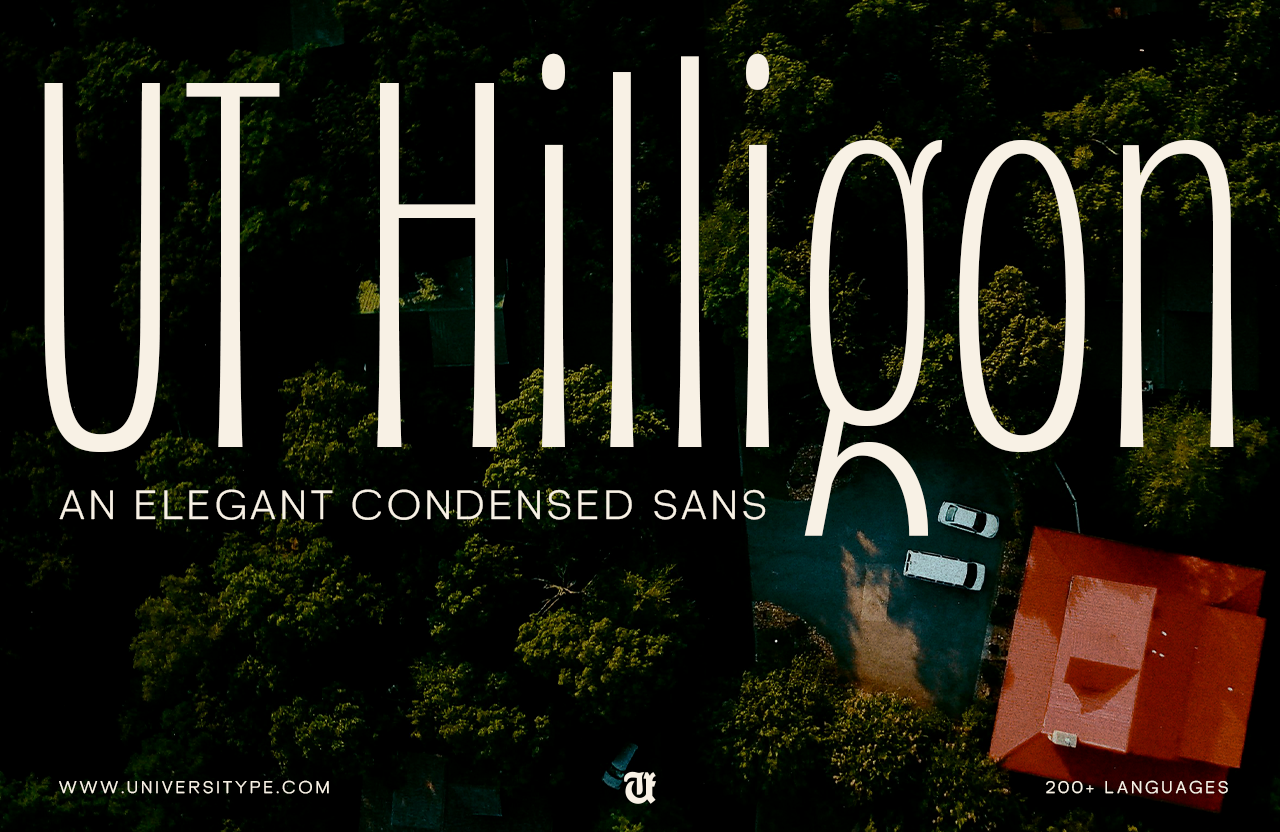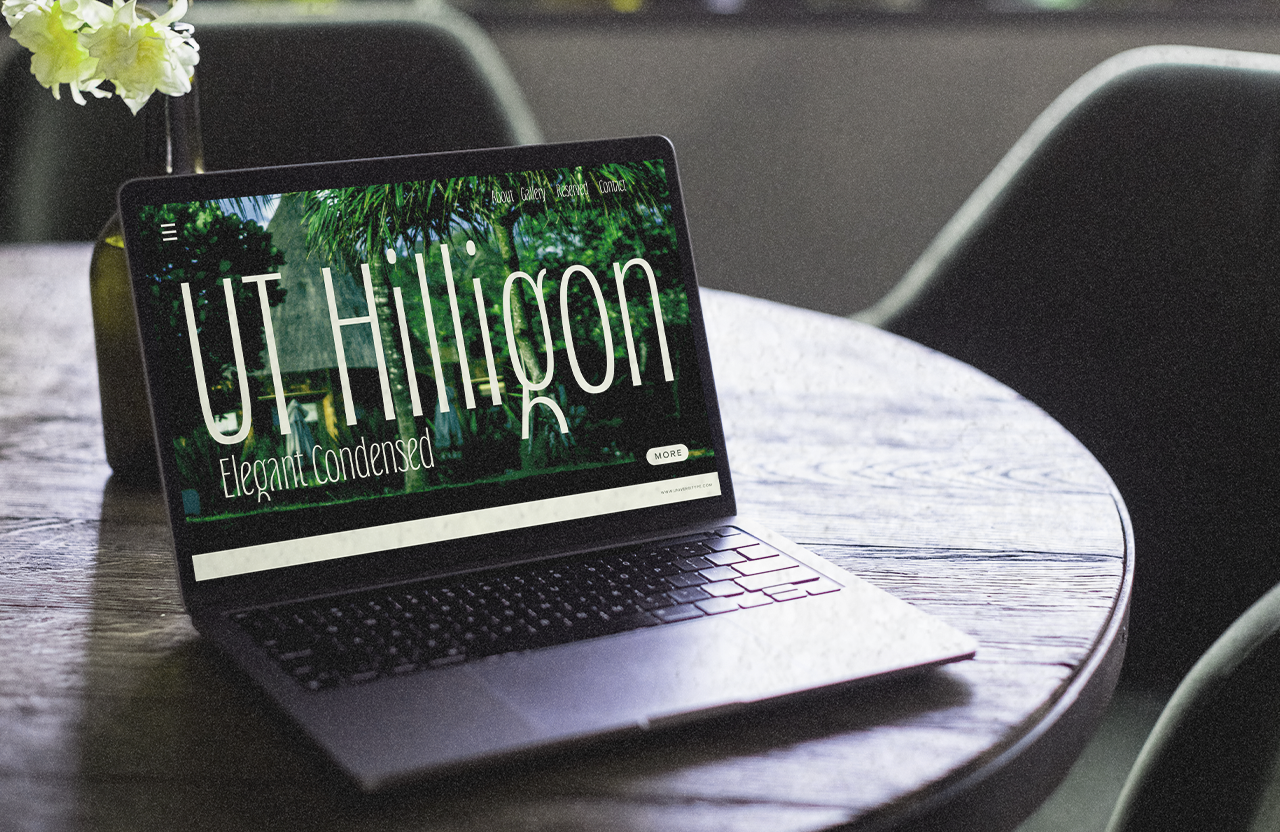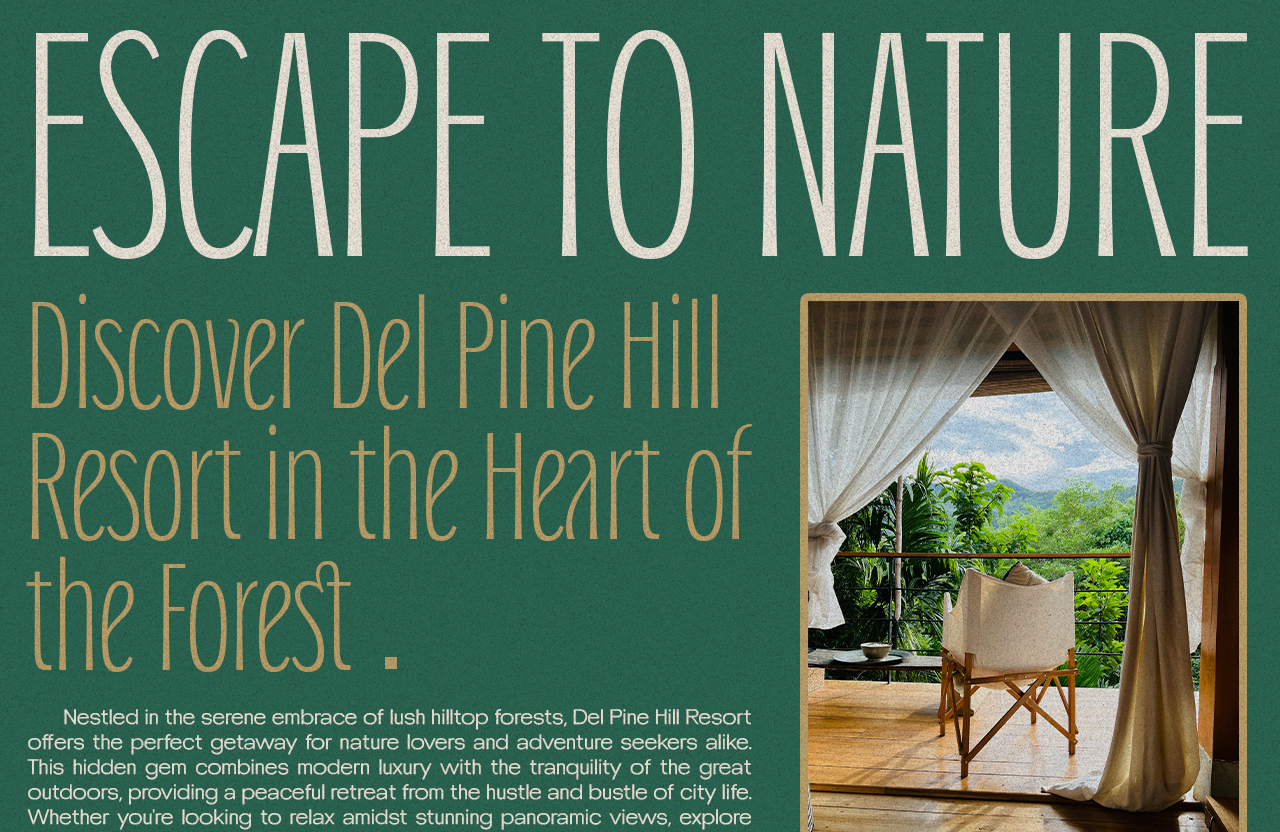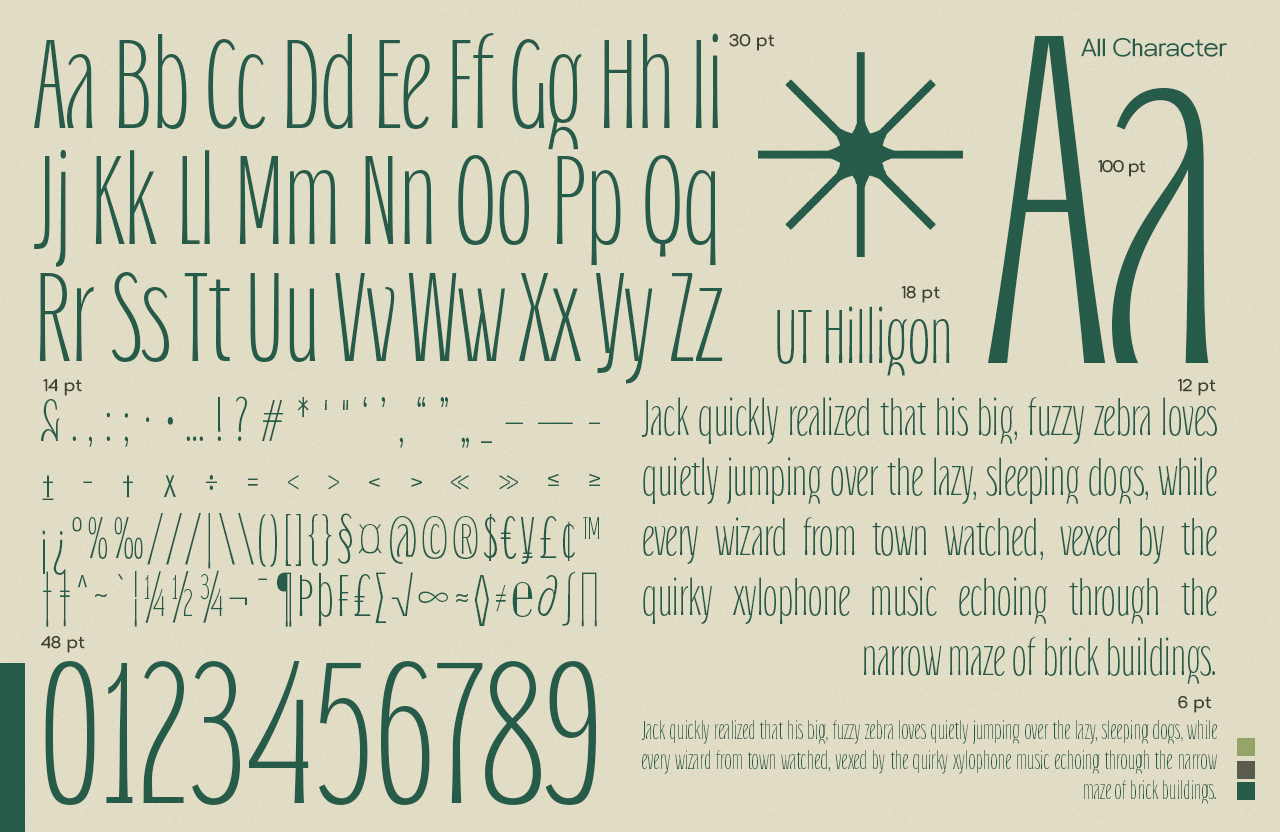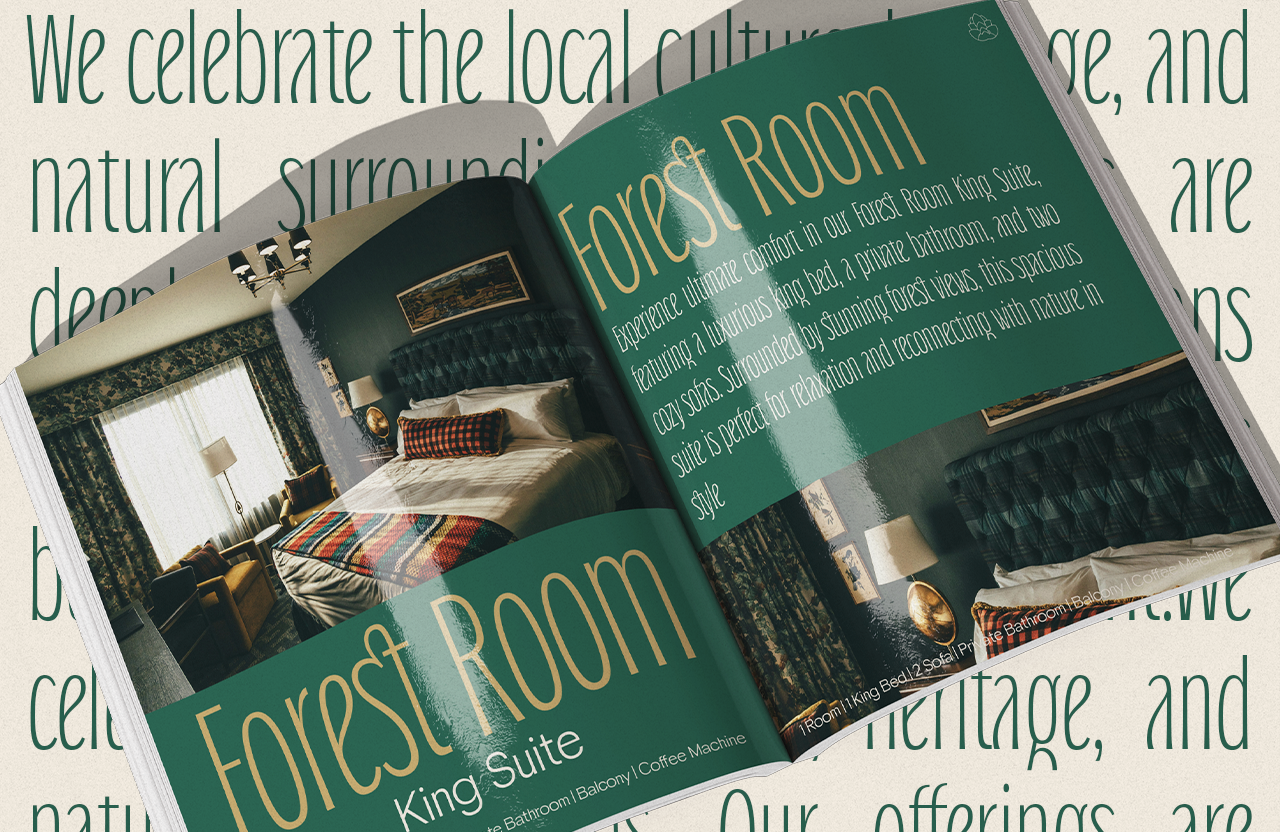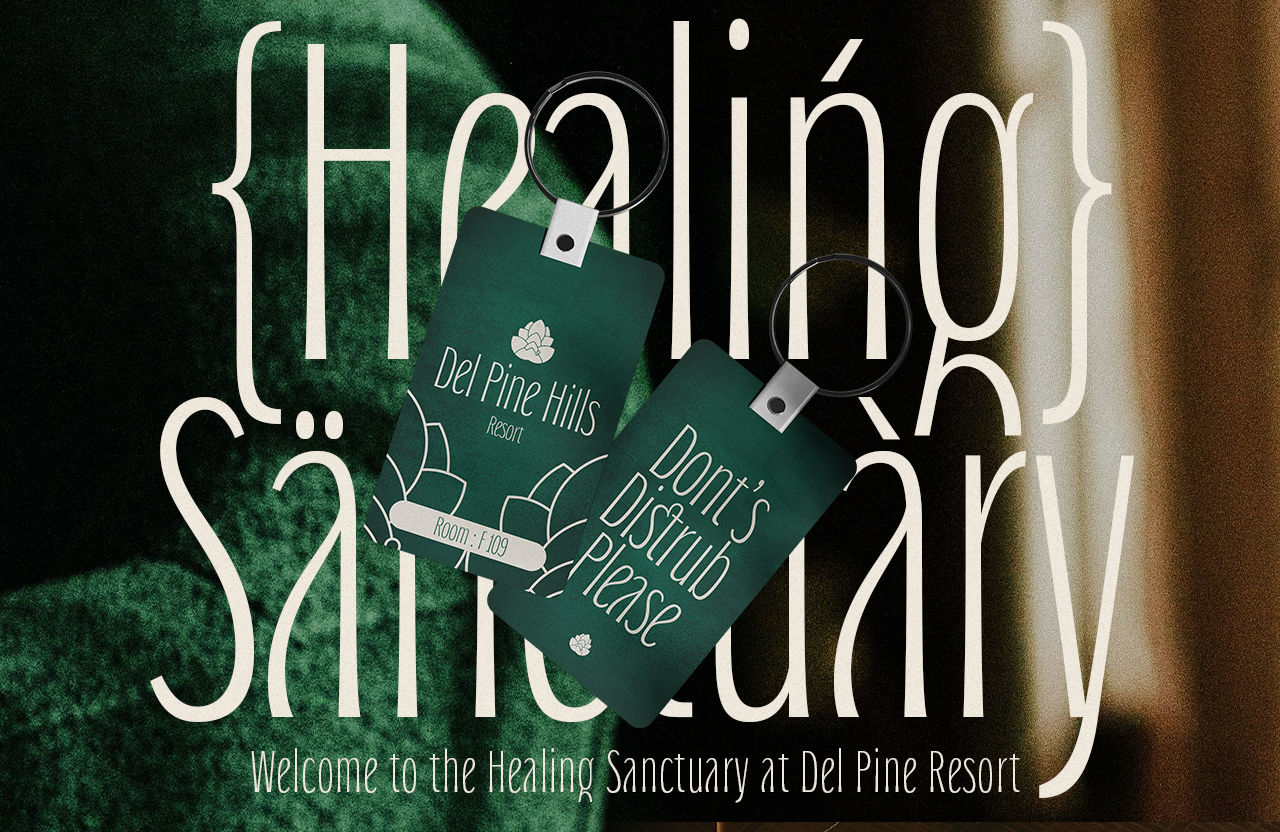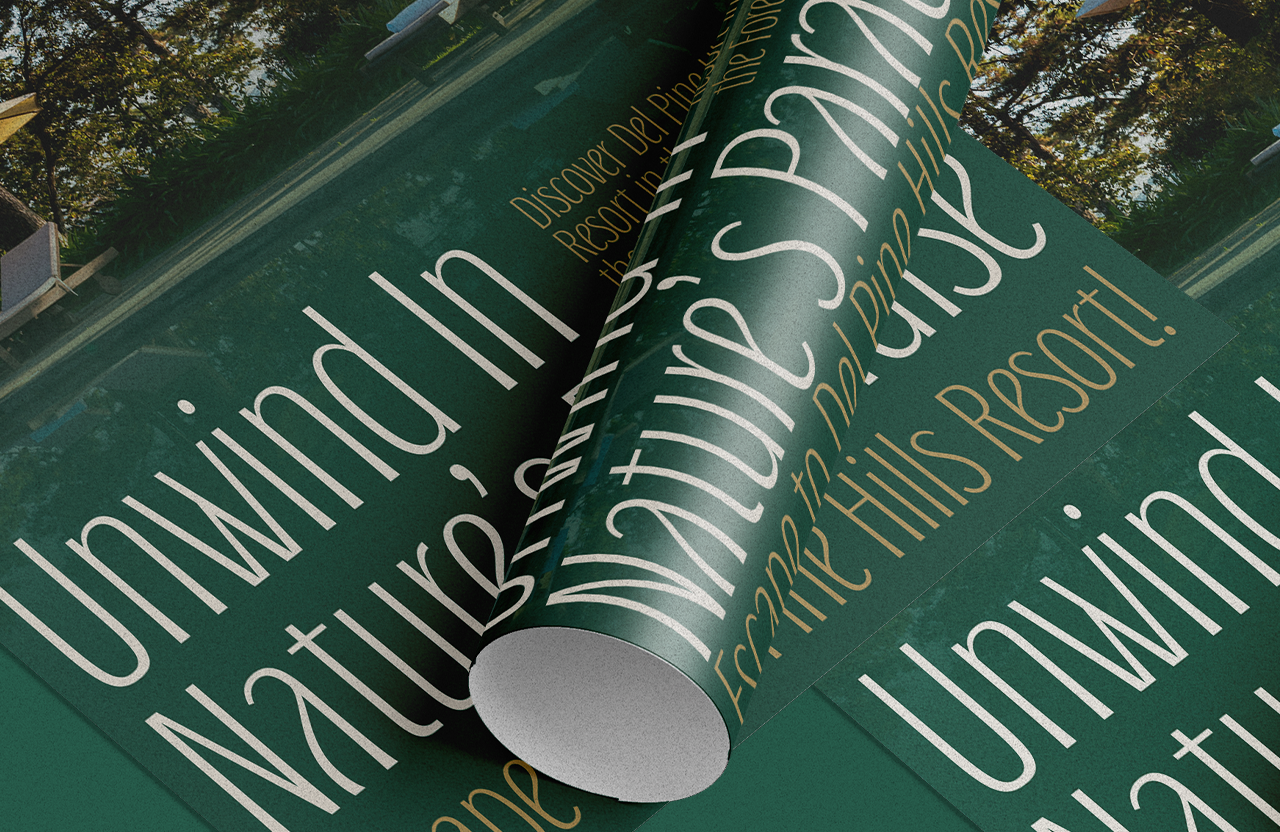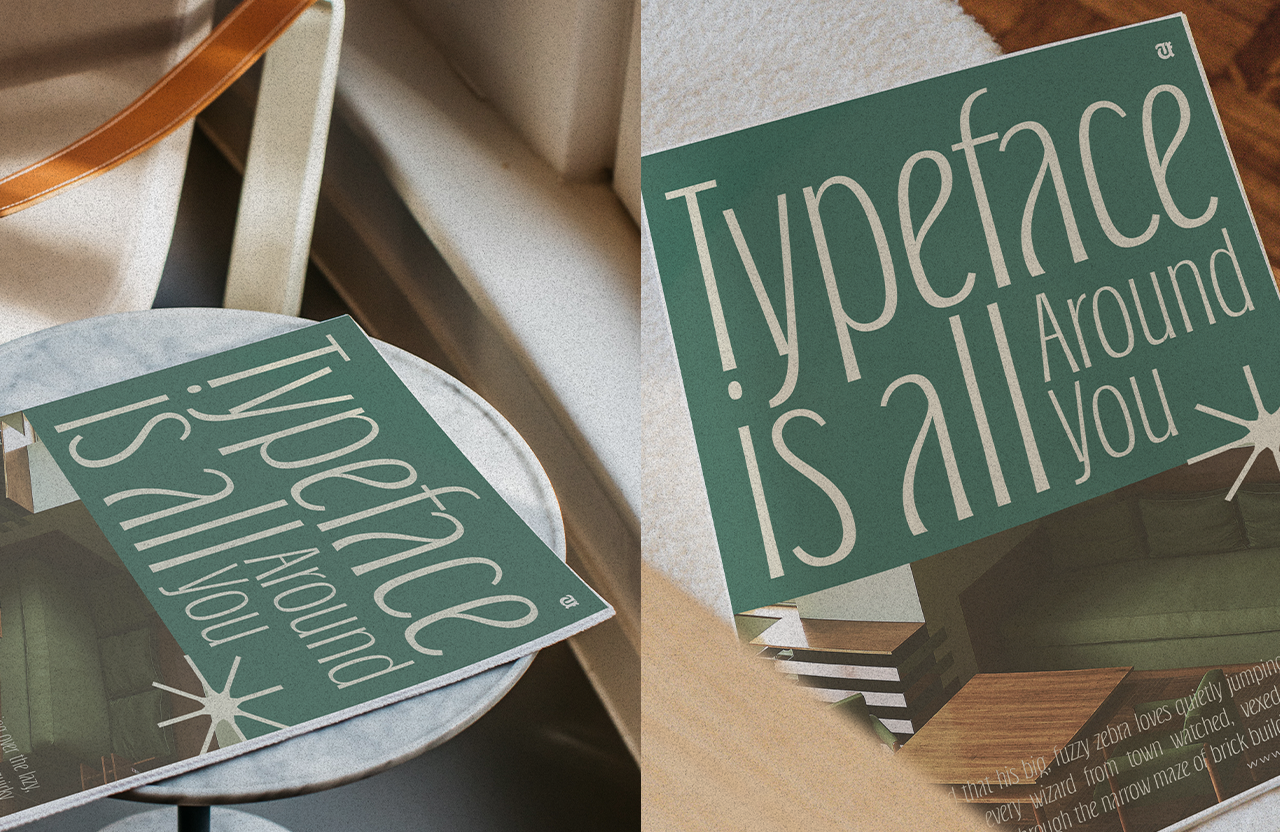
UT Hilligon - An Elegant Condensed Font
UT Hilligon transcends conventional typography, weaving the organic charm of nature into a luxurious aesthetic. Inspired by the intricate patterns of pine cones, this typeface embodies the warmth and complexity of the outdoors, offering a fresh perspective on design. Crafted for discerning creators, it strikes a harmonious balance between modernity and nature’s grace, making every design endeavor a captivating statement.
Sophisticated Elegance Tailored for Luxury With its refined character, UT Hilligon exudes an air of sophistication, ideal for upscale brands and premium projects. Each letterform hints at nature’s nuances, featuring clean, flowing lines that evoke understated luxury. Whether adorning a high-end logo, enhancing an editorial layout, or elevating an exquisite product label, this typeface resonates with audiences who value both artistry and meticulous craftsmanship.
Transformative Design Elements:
- Adaptable Across Mediums: Effortlessly transitions from print to digital realms, providing a polished touch for packaging, branding, and web design. Its versatility ensures seamless integration into various contexts.
- Extensive Glyph Collection: Over 400 meticulously designed glyphs encompass a diverse range of characters, punctuation, and symbols, catering to multilingual needs and creative typography.
- Artful Ligatures and Alternates: Enhance visual appeal with beautifully crafted ligatures and stylistic alternates, allowing designers to inject individuality and flair into their typography.
- Clarity Meets Style: Thoughtfully designed for optimal readability, UT Hilligon maintains its artistic integrity across all sizes, from bold headings to delicate body text.
- Nature-Inspired Modernity: Each letterform channels the spiraling geometry and intricate textures of pine cones, merging organic elements with contemporary design sensibilities.